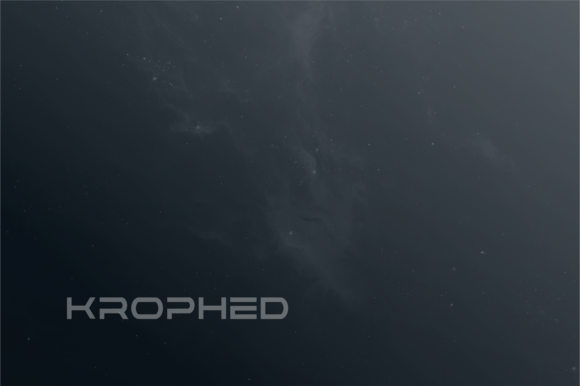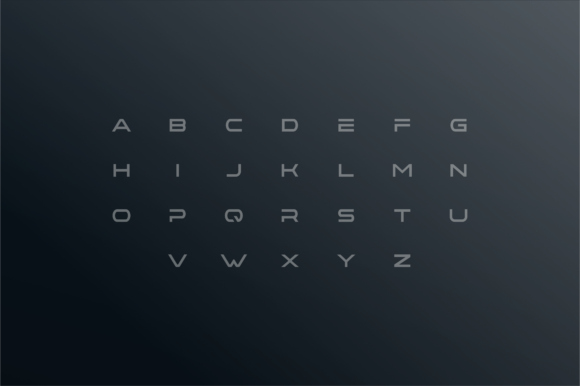
Introduction to Krophed Font
Krophed is a modern, elegant and futuristic display font.
This font would be ideal for writing web designs, business cards, or pretty much anything else that requires a unique touch .
Krophed Font offers exceptional quality and versatility, making it a valuable addition to your design toolkit. Whether you’re creating for personal projects or commercial use, Krophed Font delivers professional results.